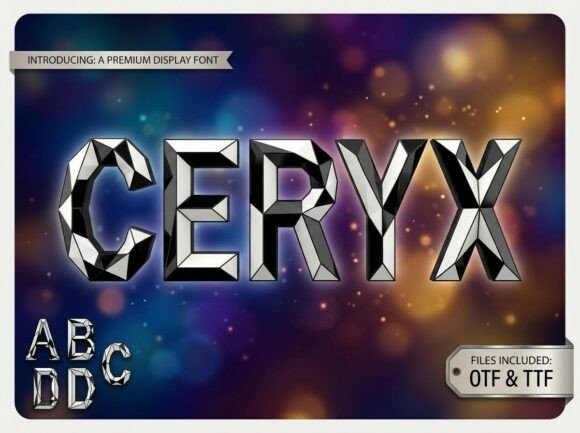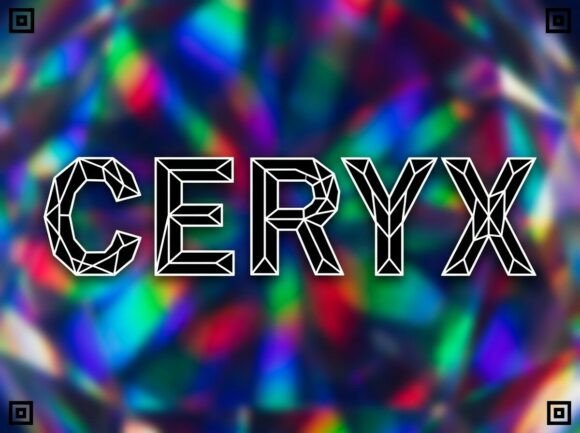
Unleashing the Luxe in Your Designs
Have you ever stared at a stunning gemstone or a sleek skyscraper, wondering how you can capture that essence in your creative work? For designers, it’s all about finding the perfect balance between style and substance. That’s where Ceryx Font comes in – a majestic display typeface that embodies the luxury and sophistication of high-end design.
This monumental font is not just a visual statement; it’s a tool to elevate your brand’s prestige and make a lasting impression. With its unique blend of hand-drawn faceted surfaces and sharp prismatic angles, Ceryx Font is the perfect choice for designers looking to add a touch of luxury to their work. Whether you’re creating a logo, title sequence, or social media header, this font is sure to bring a sense of high-end sophistication to your designs.
Ceryx Font Key Features
- Font Family: Ceryx Font is a sans-serif font family designed for digital use.
- Character Set: Supports a wide range of languages, including Latin, Cyrillic, Greek, and many more.
- Unique Characteristics: Ceryx Font features a clean and modern design, with a focus on legibility and readability in digital environments.
Ceryx Font Review
I recently had the chance to work with Ceryx Font, and I must say it’s an interesting combination of styles. Here’s what I think works well:
- ✨ The bold and italic weights are well-designed, making them perfect for creating contrast in headings and titles.
- ✨ The font’s modern and sleek aesthetic is ideal for creating a contemporary look in digital interfaces.
- ✨ Ceryx Font’s extensive language support makes it a great choice for multilingual projects.
However, I also encountered some limitations:
- ⚠️ The font’s x-height could be improved for better readability at smaller sizes.
- ⚠️ The font’s italics can sometimes appear too condensed, which may affect readability.
- ⚠️ The font’s kerning could be more consistent, especially in certain character combinations.
Overall, Ceryx Font is a solid choice for digital projects that require a modern and sleek look. While it has its limitations, the font’s strengths make it a worthwhile consideration for designers looking for a versatile and stylish typeface.
Getting the Most Out of Ceryx Font
For optimal results, use Ceryx Font in combination with bold or italic styles to create visual interest.
Experiment with different font sizes and colors to emphasize key points.
Ceryx Font is ideal for:
Headings and titles
Body text in creative or modern designs
Quotes and call-outs in presentations or documents
Alternatives to Ceryx Font
Monserrat is a sans-serif font designed by Julieta Ulanovsky. It’s perfect for use in modern designs, especially for digital platforms. Montserrat is more geometric and has a cleaner look compared to Ceryx Font, which is more rounded and elegant.
Open Sans is a popular sans-serif font designed by Steve Matteson. It’s highly legible and works well in a variety of contexts, from body text to headings. Open Sans is more neutral and lacks the distinctive character of Ceryx Font, making it a great choice for projects where a more subtle font is needed.
Lato is a sans-serif font designed by Łukasz Dziedzic. It’s a versatile font that works well in both print and digital designs. Lato is more elegant and refined compared to Ceryx Font, with a stronger emphasis on readability and legibility.
Inter is a sans-serif font designed by Rasmus Andersson. It’s a modern font with a strong geometric feel, making it perfect for use in contemporary designs. Inter is more condensed and has a stronger x-height compared to Ceryx Font, giving it a more dynamic and energetic feel.
Exploring Creative Possibilities with Ceryx Font
Project 1: Ceryx Typography Wall Art
Creat a visually striking typography wall art piece using Ceryx Font as the main focus.
What font sizes and styles are included in the Ceryx Font family?
The Ceryx Font family includes a range of font sizes from 8pt to 120pt, as well as various styles, including regular, bold, italic, and bold italic. The font family also includes ligatures, swashes, and other decorative elements to enhance your designs.